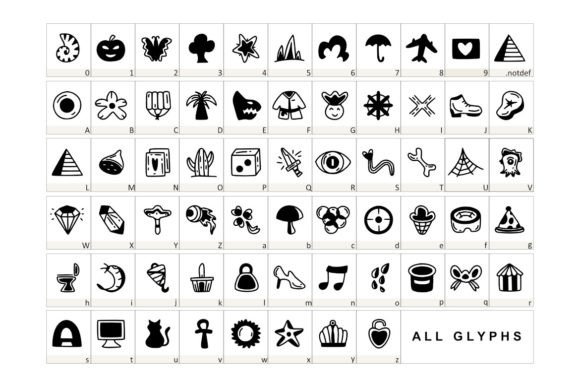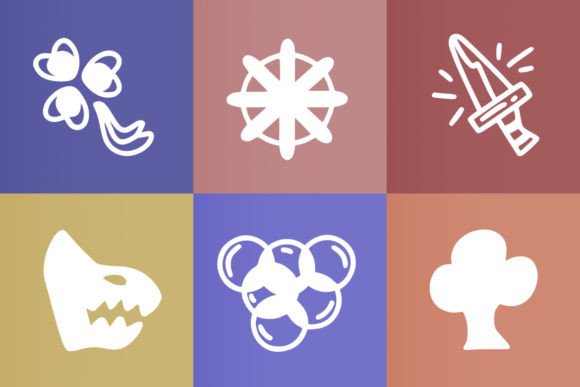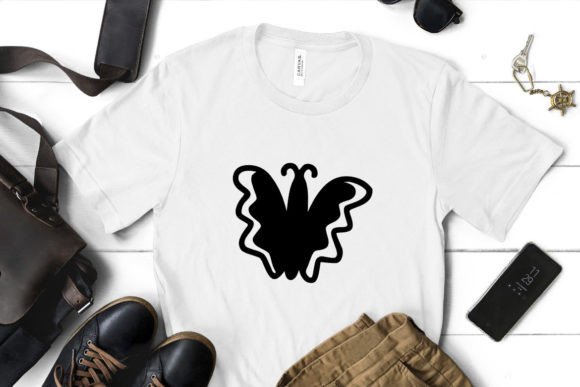
Introduction to Jolly Shapes Font
Have you ever found yourself staring at a blank canvas, trying to come up with the perfect idea for a creative project? The blank page can be intimidating, but sometimes all it takes is a little spark to set your imagination ablaze. For designers and crafty individuals, discovering a new font can be just that spark. Enter the Jolly Shapes Font, a delightful dingbats font that’s sure to bring a smile to your face and a dash of whimsy to your projects.
This font is more than just a pretty face – it’s a valuable resource for designers looking to add a unique touch to their work. With its high-quality design and transparent background, it’s perfect for use on stickers, posters, t-shirts, cards, and apparel graphics. And the best part? It’s available as a free download, making it an accessible design resource for creatives of all levels.
Key Features of Jolly Shapes Font
- High-quality, vector-based design suitable for a creative project with a transparent background.
- Includes 100+ unique shapes and icons, perfect for adding a playful touch to your design project.
- Designed with a high level of detail and precision, ensuring crisp and clear visuals at resolutions up to 300 DPI.
- Perfect for use in digital and print-based creative projects, including logos, icons, and graphics.
Honest Review: Jolly Shapes Font
As a designer, I’m always on the lookout for fresh and unique design resources to elevate my creative projects. The Jolly Shapes Font caught my eye with its playful and whimsical style, and I was excited to give it a try.
- ✨ High-quality design: The font is well-crafted and has a crisp, clean appearance that makes it perfect for digital design projects.
- ✨ Versatile: The Jolly Shapes Font can be used for a variety of creative projects, from branding and marketing materials to editorial and educational content.
- ⚠️ Limited customization options: While the font itself is well-designed, the lack of customization options can limit its use in certain creative projects.
- ⚠️ Not suitable for all backgrounds: The transparent background of the font can make it difficult to use in certain design scenarios, particularly those with complex or busy backgrounds.
Overall, I think the Jolly Shapes Font is a solid addition to any designer’s toolkit. While it may have some limitations, its unique style and high-quality design make it a great choice for creative projects that require a playful and whimsical touch.
The Jolly Shapes Font is perfect for creative projects that require a playful and whimsical touch. Use it for designing children’s books, party invitations, or social media graphics. The transparent background feature makes it easy to overlay the font on top of other design elements, creating a cohesive and visually appealing design.